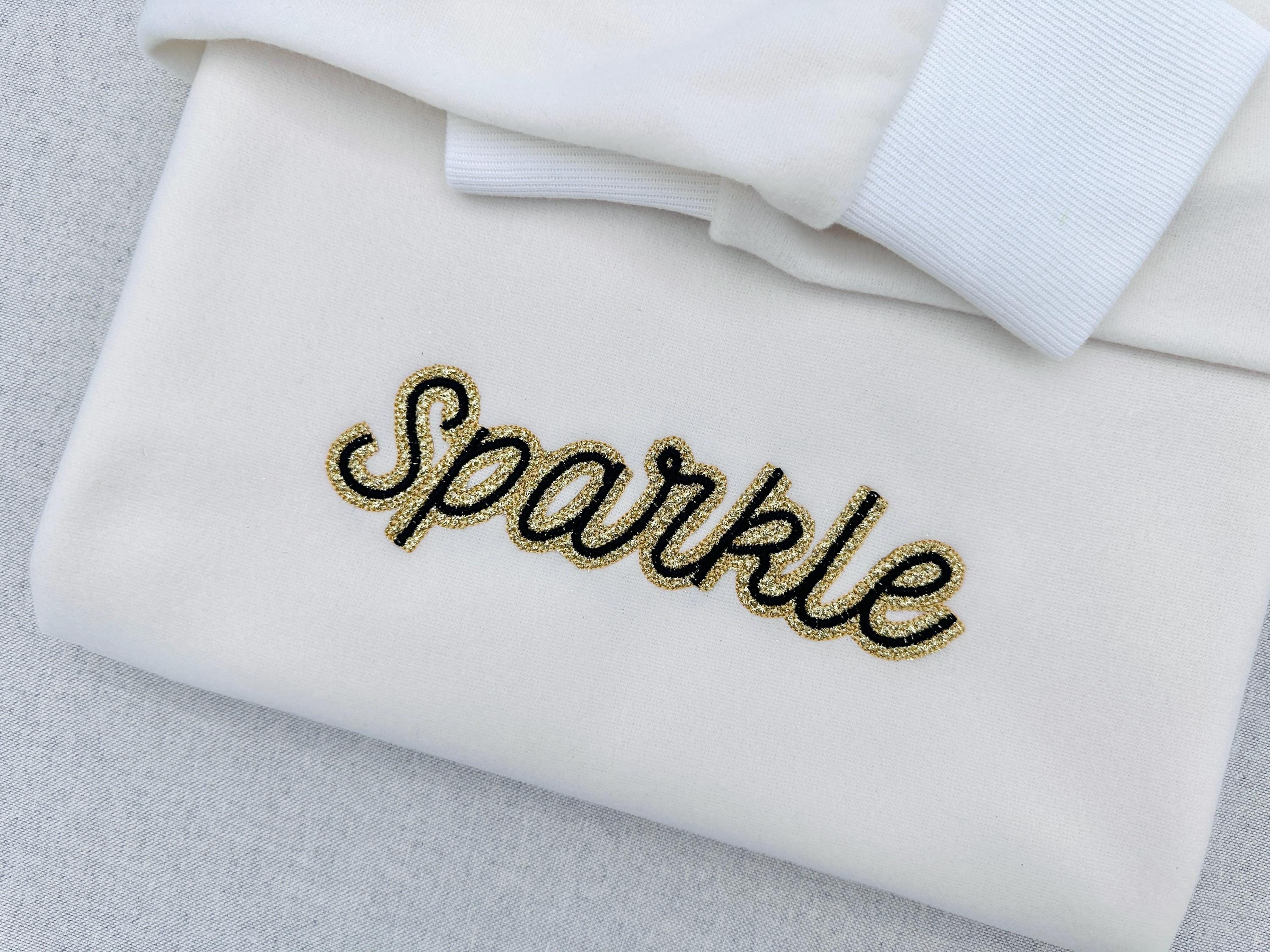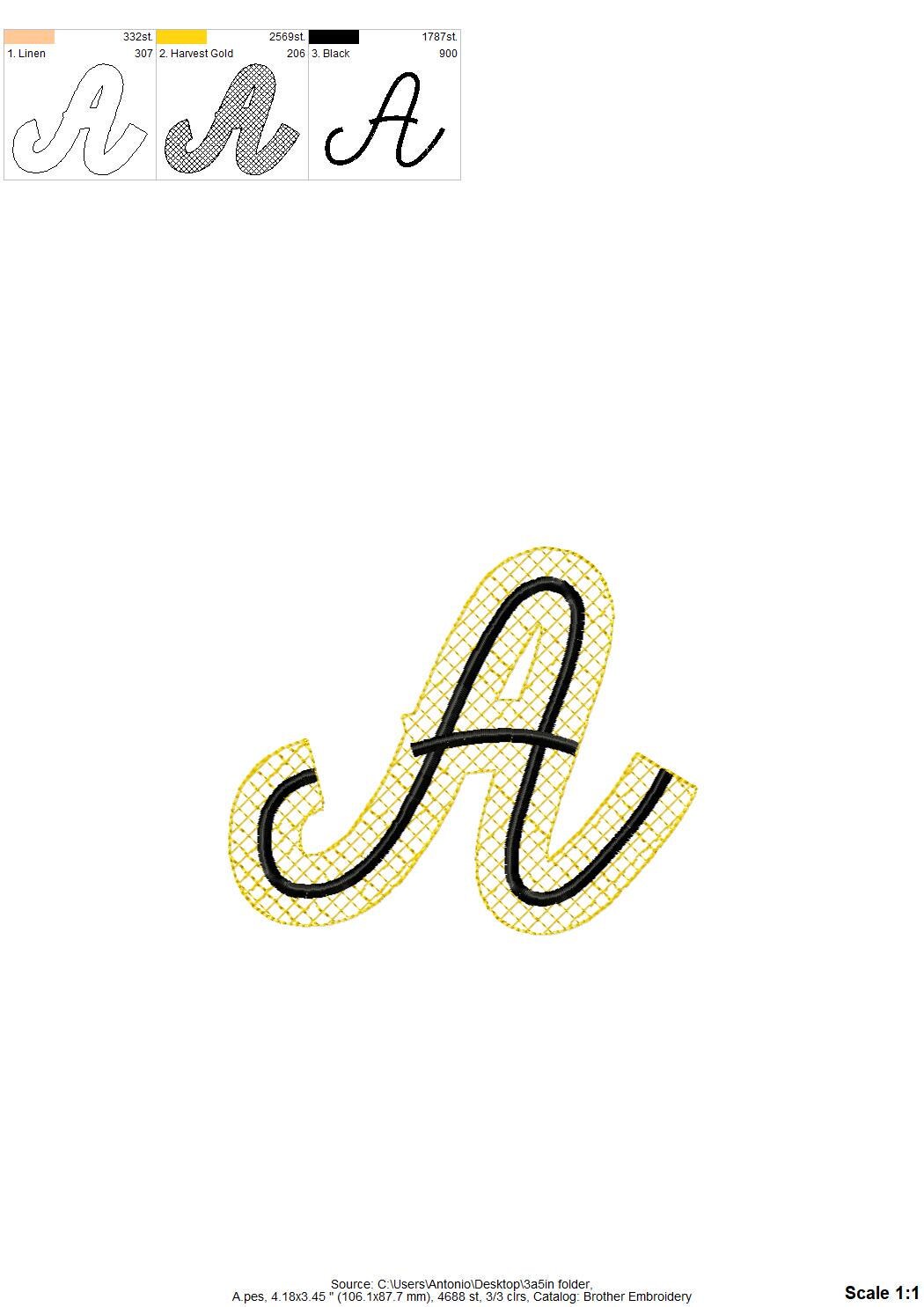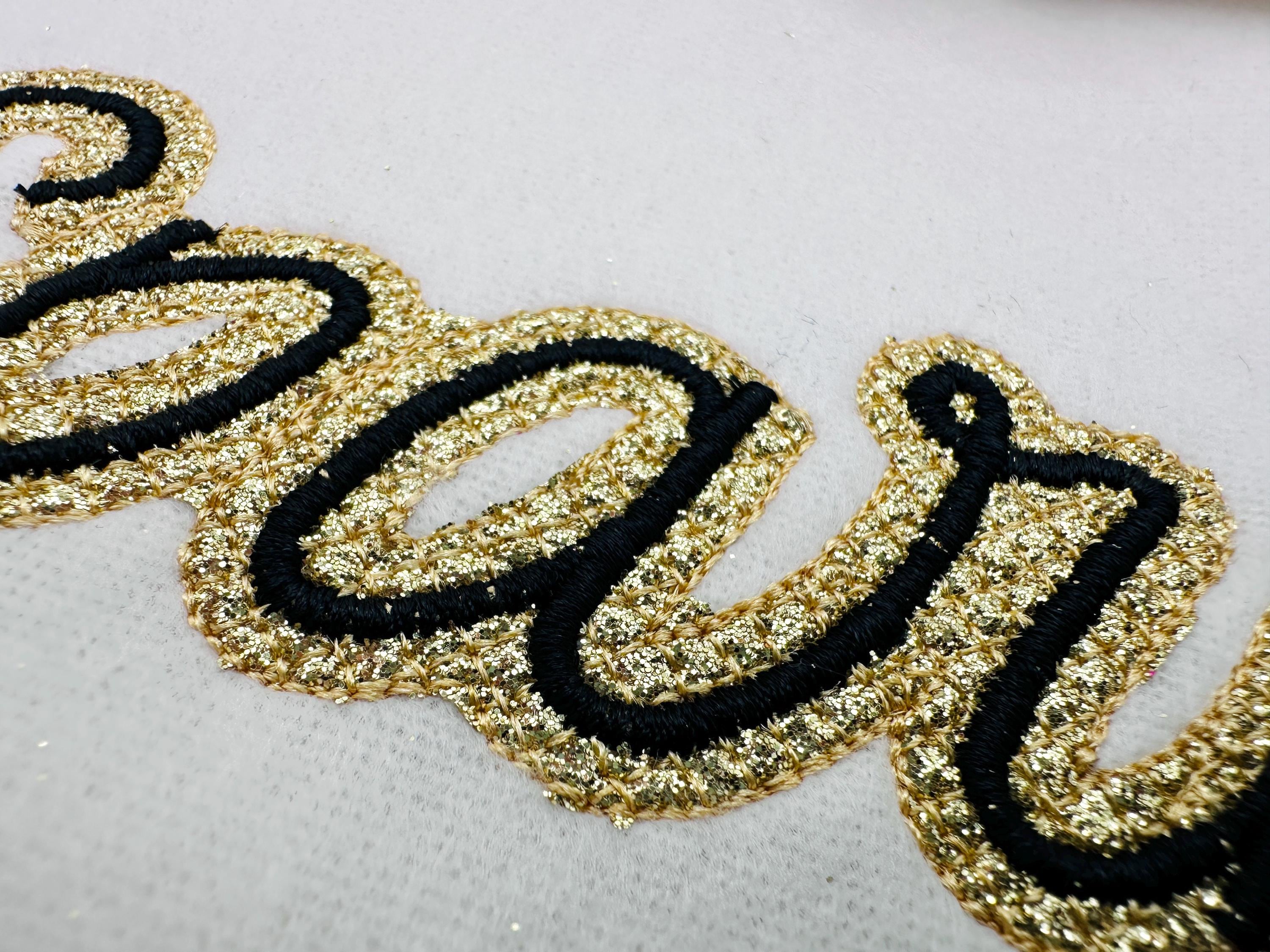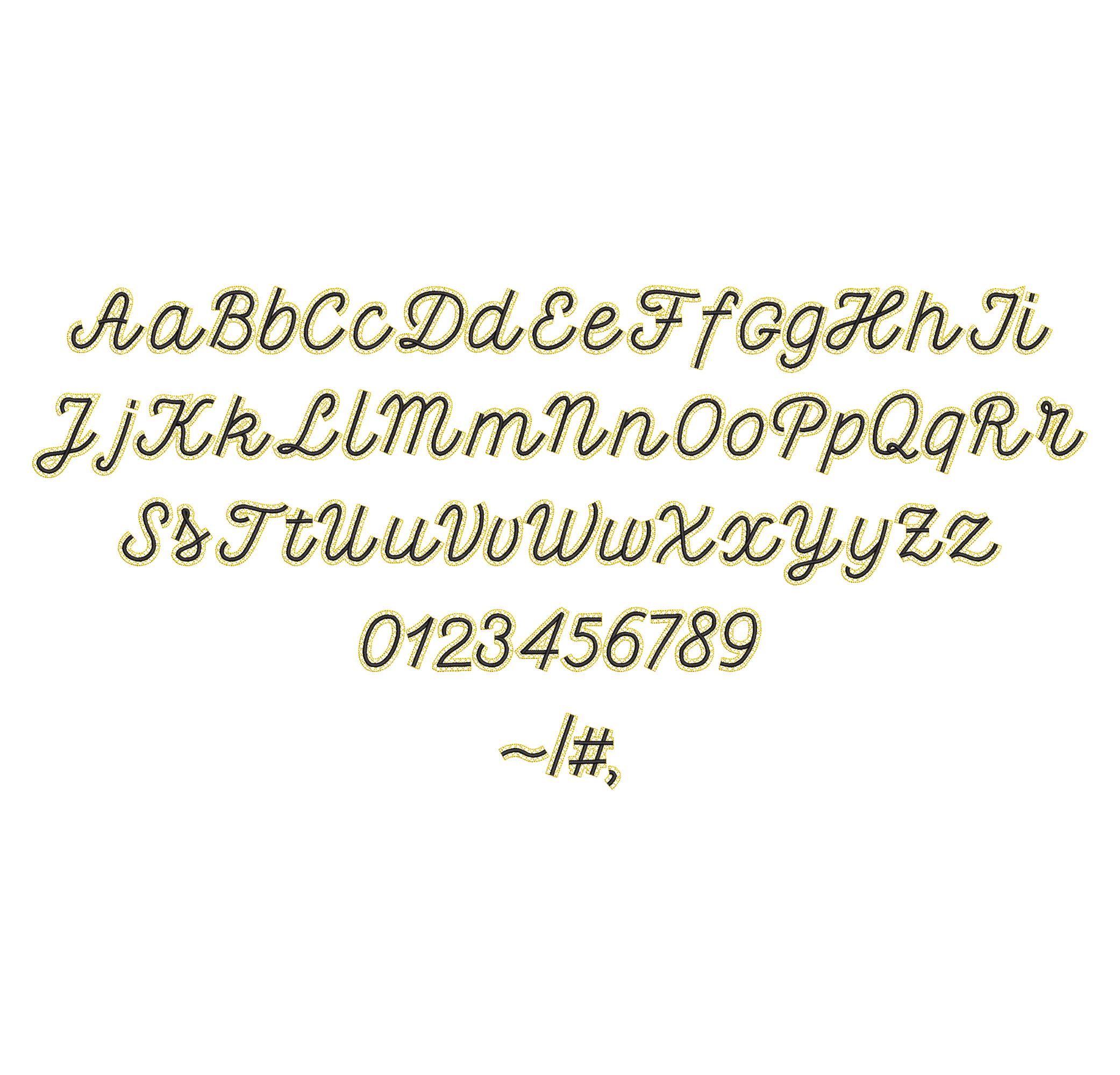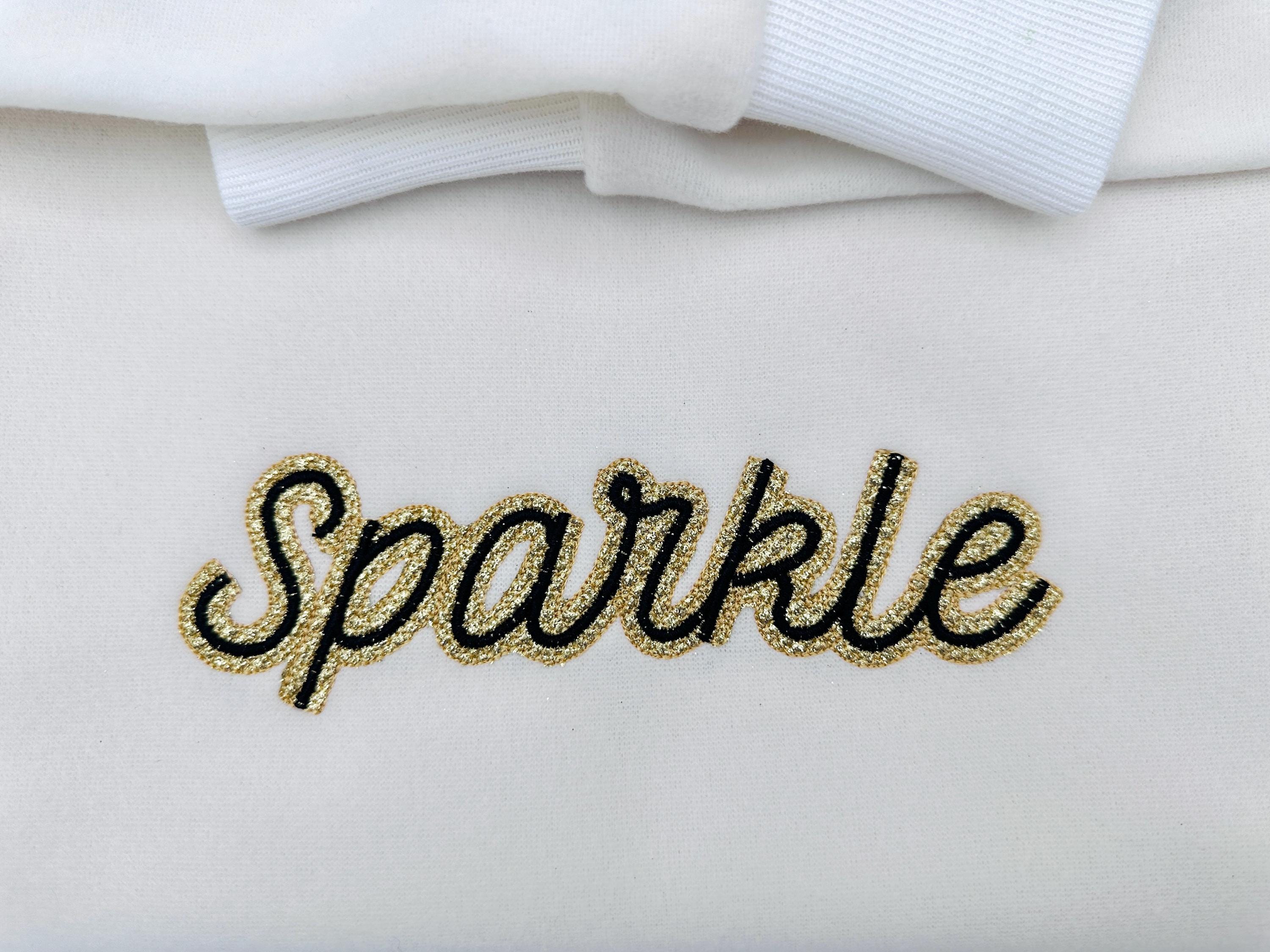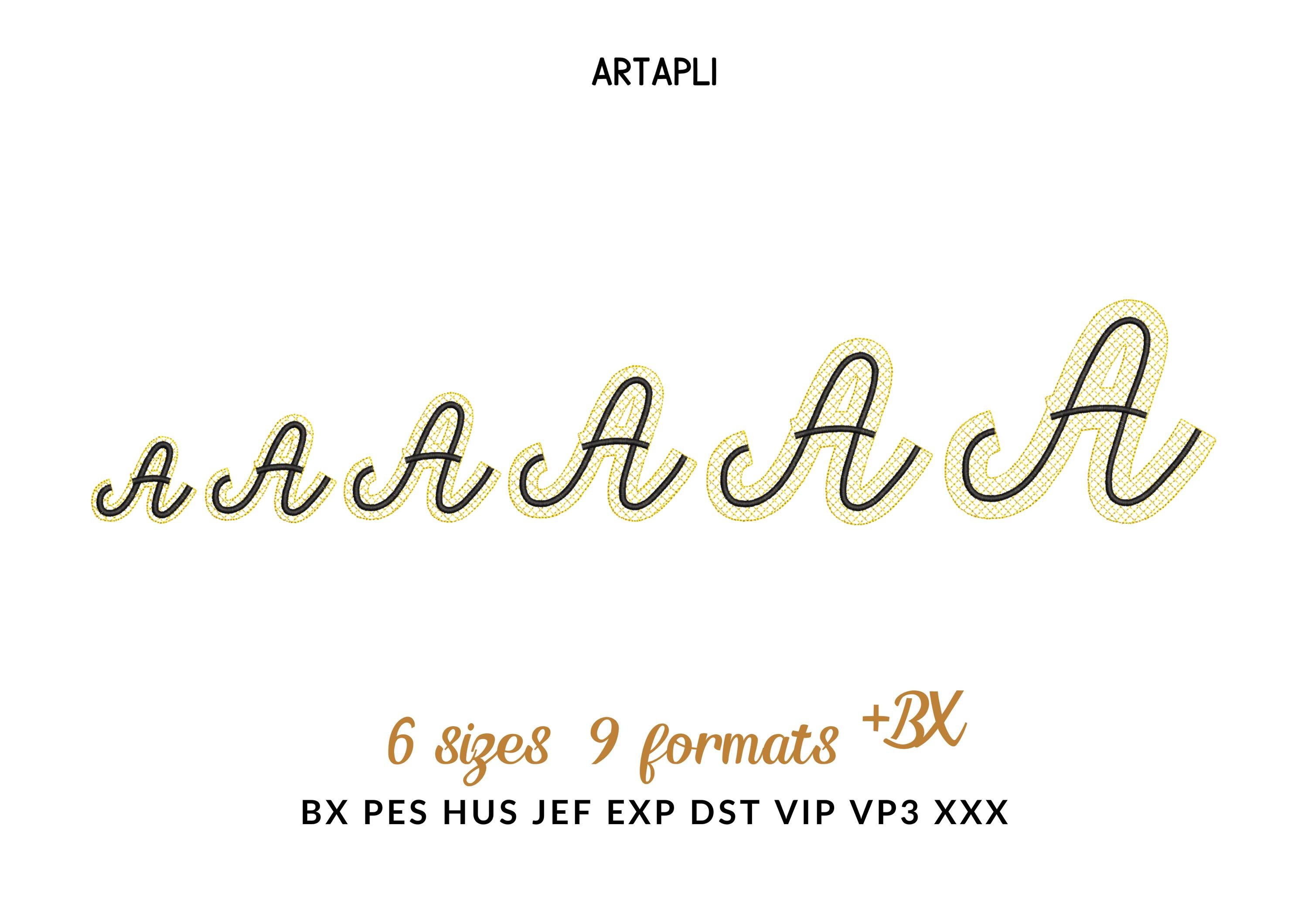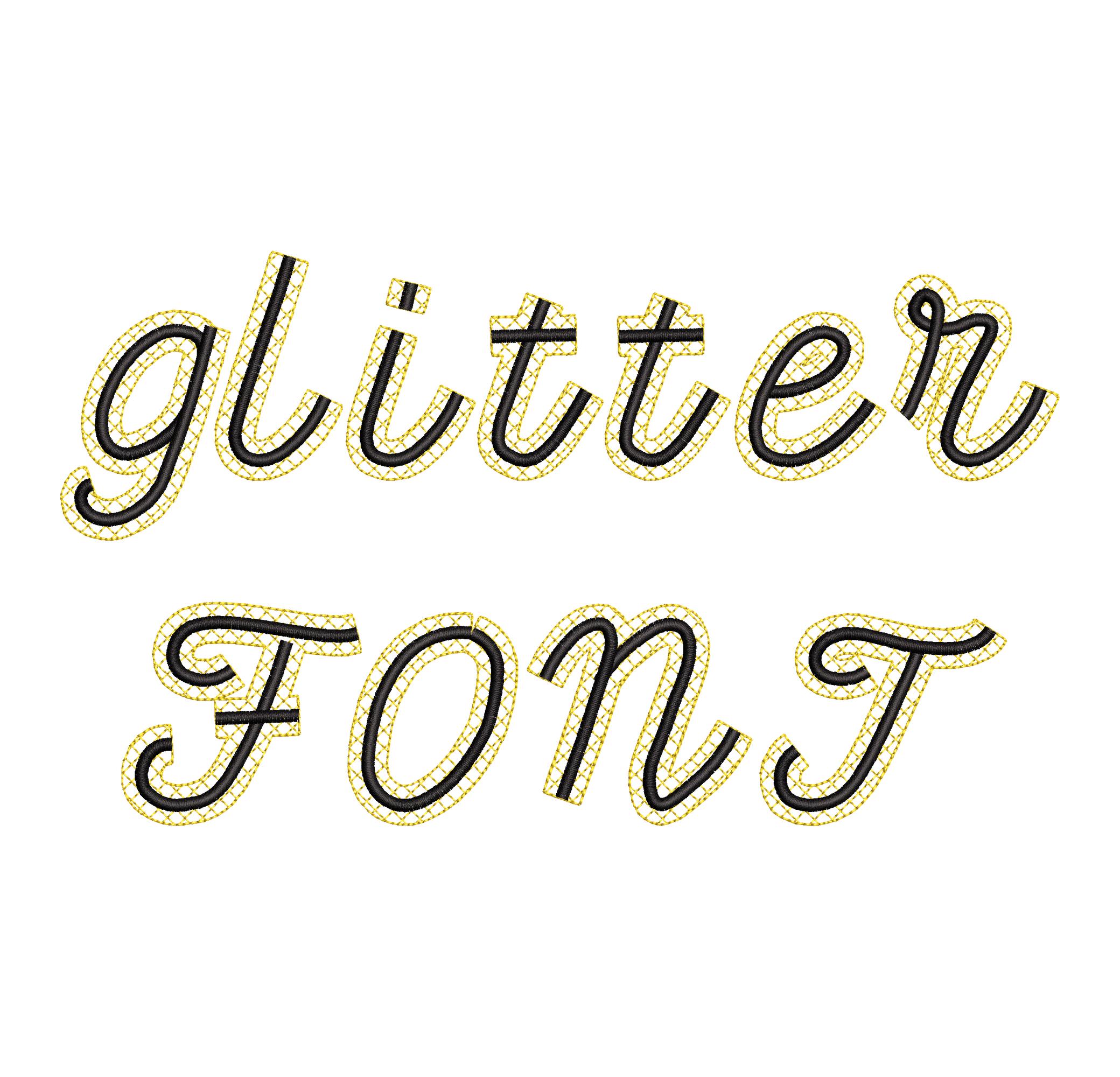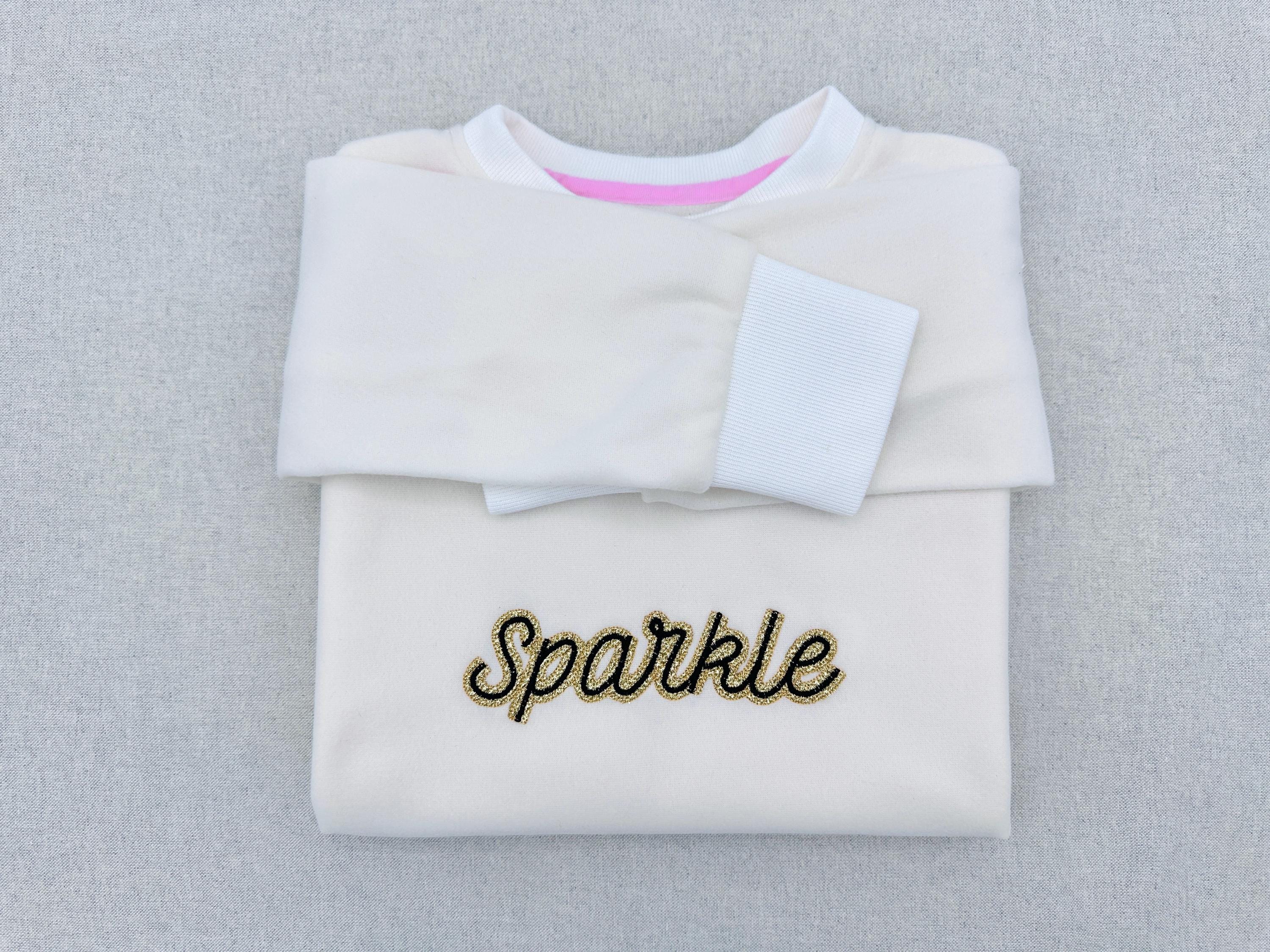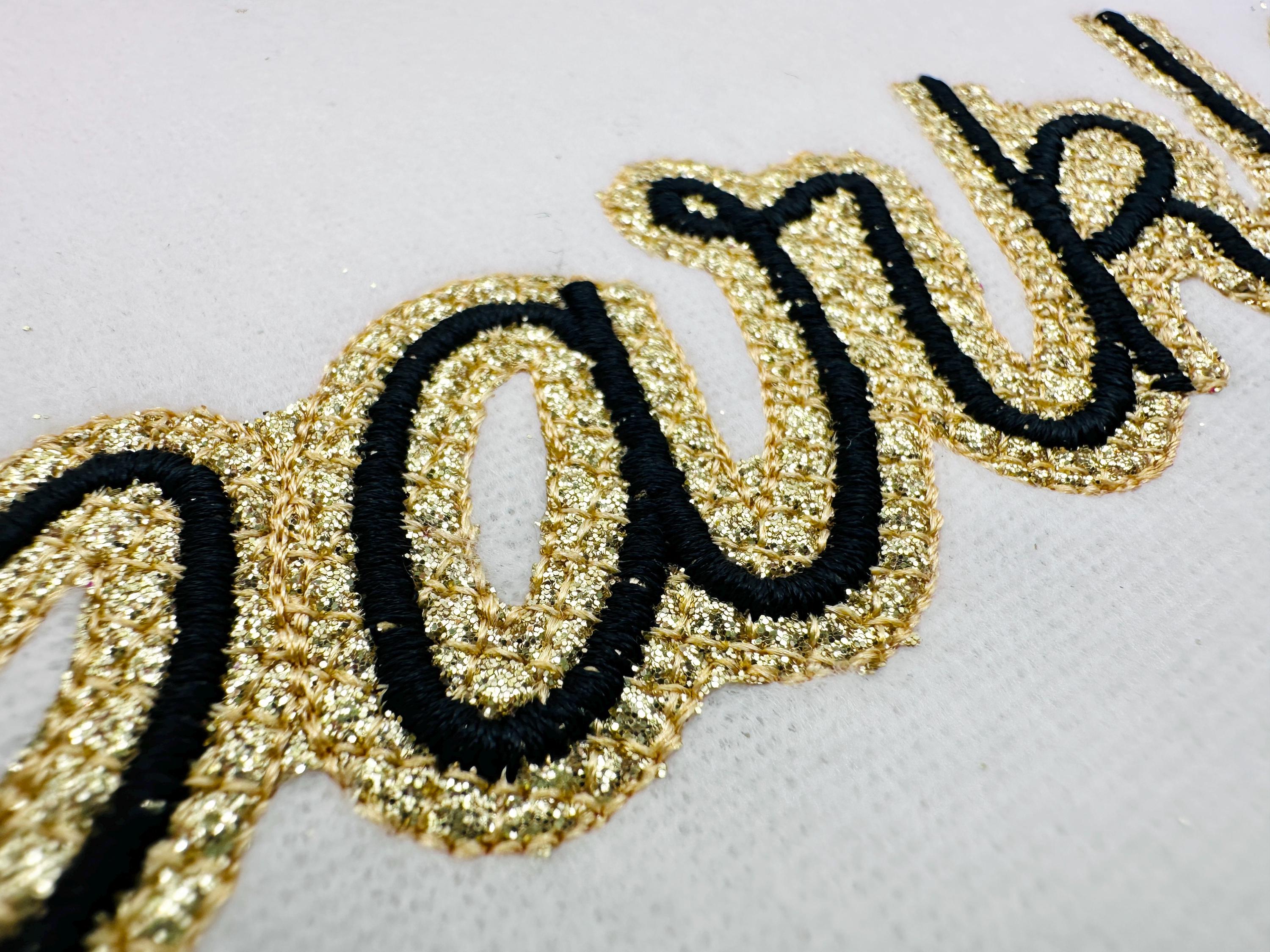
HTV vinyl satin stitch script FONT Glitter Silk glitter layer applique machine embroidery designs Alphabet Monogram sizes 1.6 up to 4.1 inch
Whole alphabet uppercase and lowercase Aa-Zz, numbers 0-9, and punctuation as shown in the image.
NOTE: Due to the handwritten style and natural letter shapes, some outline lines may overlap when the letters are connected. This is not noticeable when using glitter HTV or glitter faux leather. For best results, choose a thread color that closely matches the glitter color. Please see the attached photo for reference.